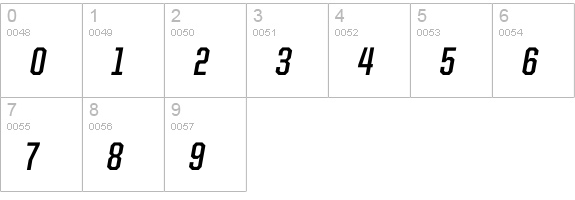
United Italic Cond Bold Font Details
United Italic Cond Bold is a strong, high-contrast, condensed-width, italic variant in the United typeface family \xE2\x80\x94 well suited to headlines, attention-grabbing titles, and strong calls-to-action.
United Italic Cond Bold is a bold and stylish font that exudes confidence and sophistication. With its sleek and slender letterforms, this font is perfect for making a bold statement in any design project. The strong and distinctive curves of each letter create a sense of elegance and modernity, making it ideal for both print and digital applications. This font is freely available to download at FontsMarket.com, allowing designers and creatives to easily access and utilize its striking aesthetic. Whether you're designing a logo, creating a magazine layout, or crafting a sleek website, United Italic Cond Bold will effortlessly elevate your design to new heights. The versatility of this font is truly remarkable. Its condensed form allows for efficient use of space, making it perfect for headlines, banners, and signage. The bold weight adds emphasis and impact, ensuring that your message is conveyed with clarity and power. United Italic Cond Bold is meticulously crafted with attention to every detail, resulting in a harmonious balance between elegance and readability. The clean lines and refined shapes of each character make it highly legible even at smaller sizes, making it an excellent choice for body text as well. Whether you're a professional designer or a creative enthusiast, United Italic Cond Bold offers endless possibilities for your projects. Its timeless and sophisticated design will stand the test of time, making it a valuable asset in your font library. Experience the freedom and flexibility of United Italic Cond Bold by downloading it for free at FontsMarket.com. Elevate your designs with this stunning font and let your creativity soar.